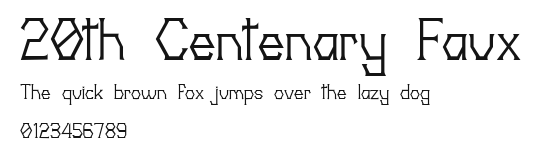
20th Centenary Faux Preview
• Font Name: 20th Centenary Faux
• Font ID: 20th Centenary Faux
• Full Font Name: 20th Centenary Faux
About 20th Centenary Faux.ttf
20th Centenary Faux.ttf is a modern, elegant sans-serif font designed for ultimate readability and visual harmony. Perfect for branding, headlines, web design, and print materials.